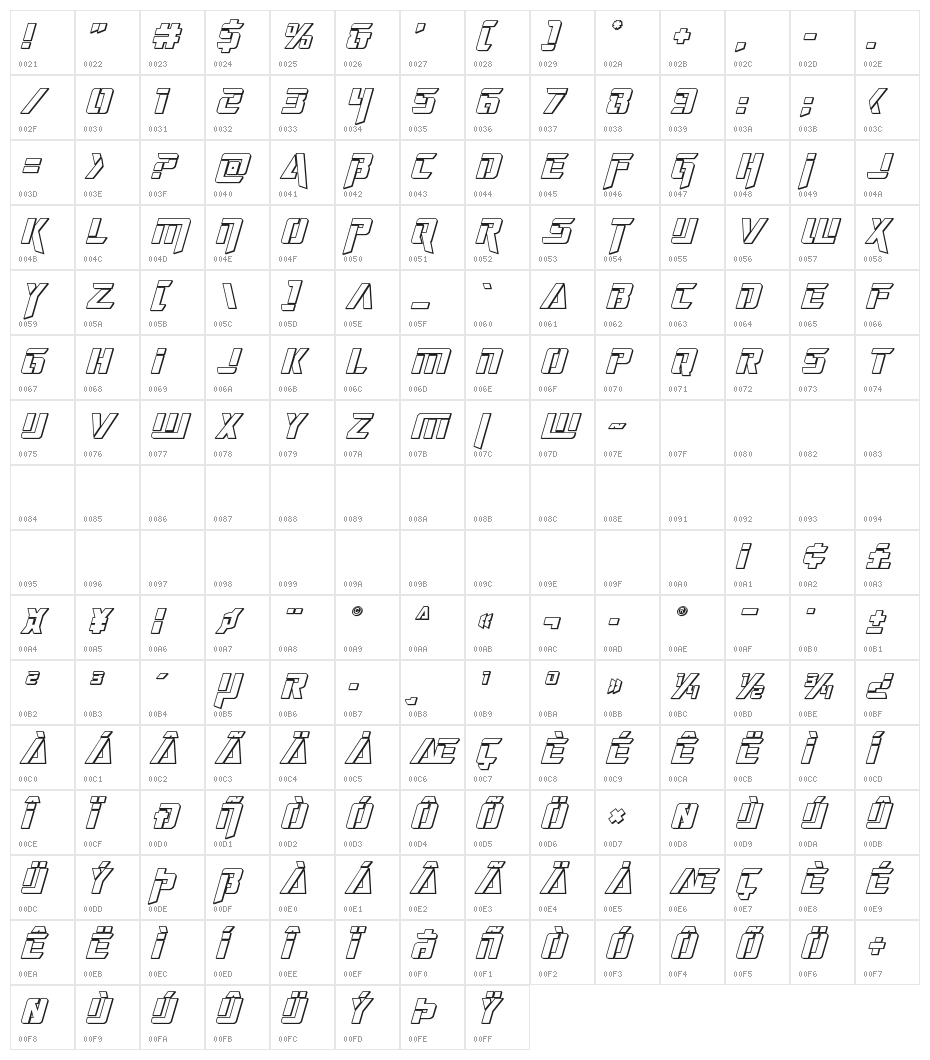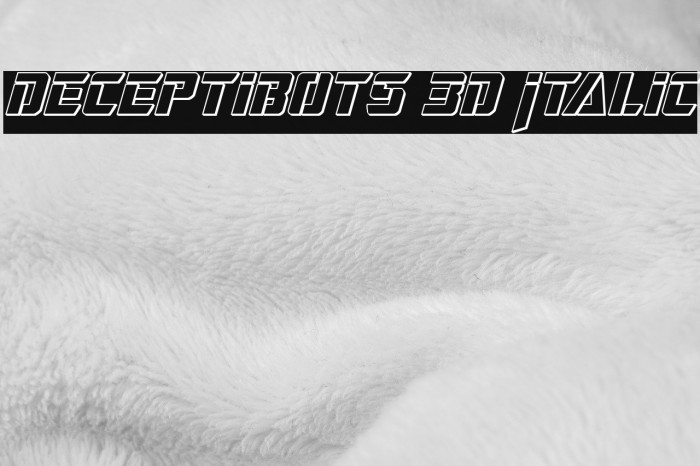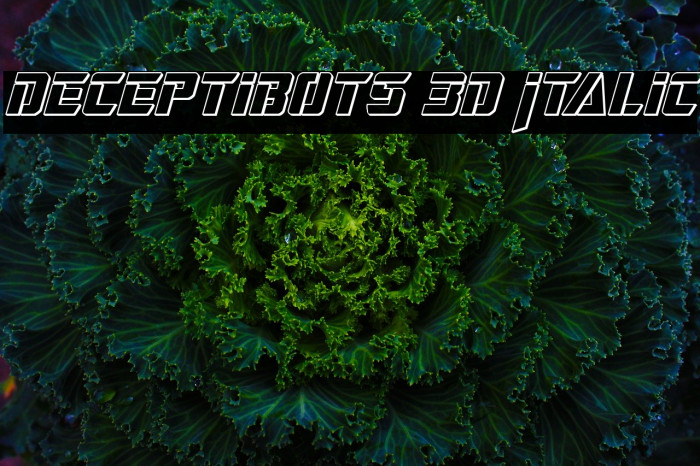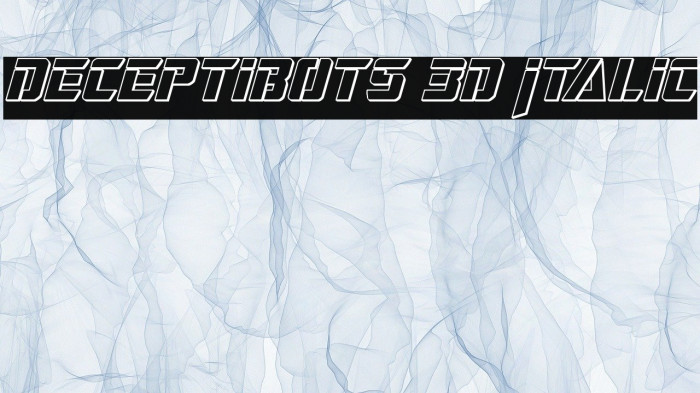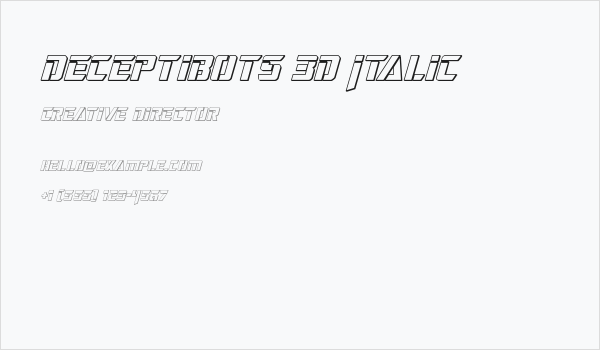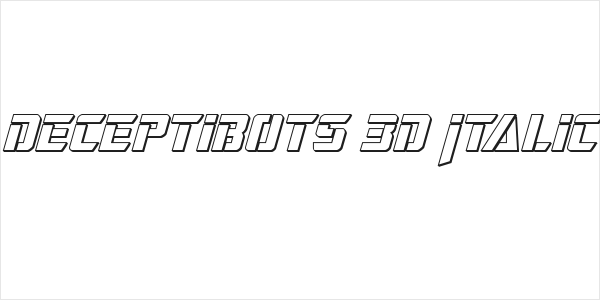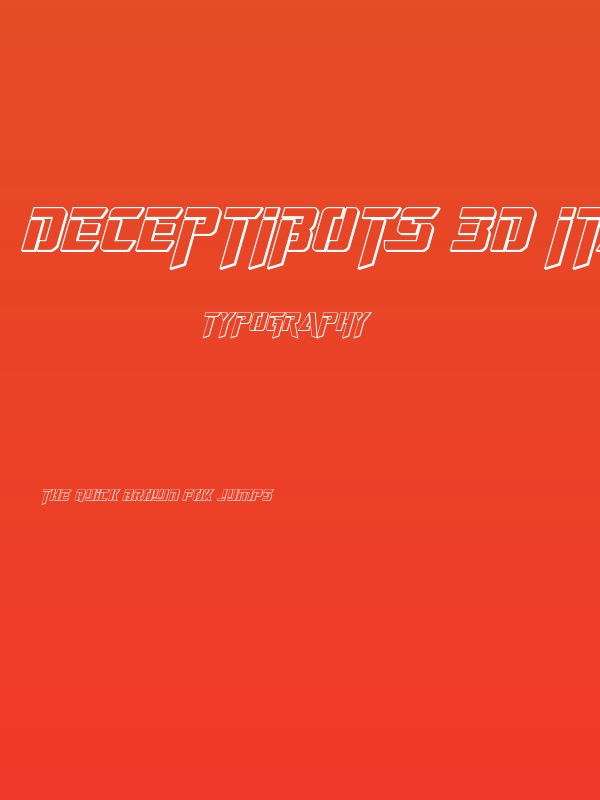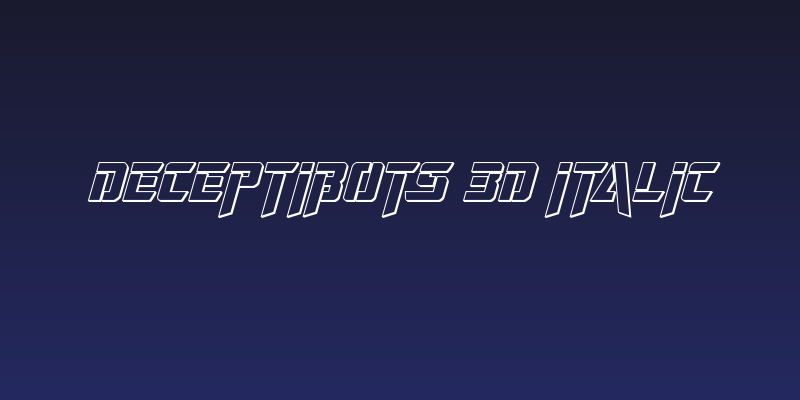
Deceptibots 3D Italic Font
Deceptibots 3D Italic Description
This font features a bold, futuristic design with a 3D effect that gives each character a sense of depth and movement. The italicized style adds a dynamic and forward-leaning appearance, enhancing its modern and edgy look. The characters are constructed with sharp angles and clean lines, creating a sense of precision and technological sophistication. The uppercase and lowercase letters maintain a consistent style, while the numbers and special characters complement the overall aesthetic. The font's unique design makes it ideal for projects that require a strong, impactful visual presence.
| Overall Style | Futuristic, Modern |
| Proposed Projects | Ideal for sci-fi themed designs, video game titles, tech branding, and futuristic posters. |